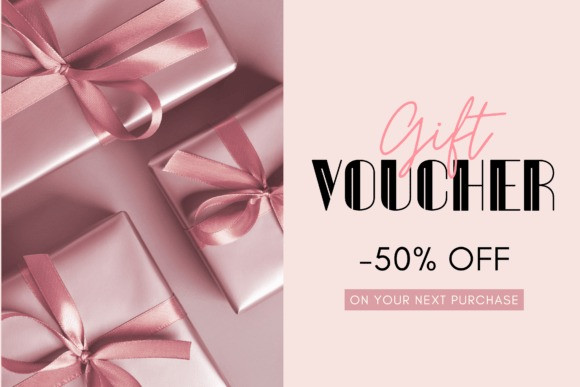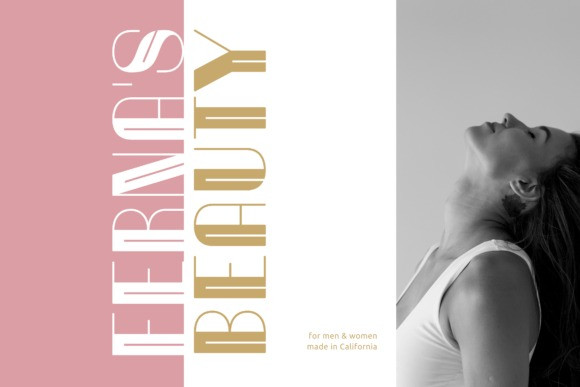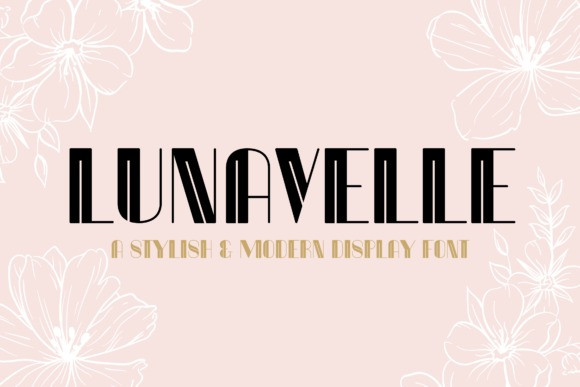
Lunavelle Font
Lunavelle Font is a striking display typeface that features perfectly balanced straight lines and curves, infused with a touch of Art Deco elegance. Designed exclusively in uppercase, it delivers a look that’s both sophisticated and sharp—ideal for fashion branding, advertising, packaging, posters, and captivating social media visuals.
Complete with numerals, punctuation, and multilingual support, Lunavelle offers versatile functionality to elevate any personal or commercial project, ensuring your work truly stands out.